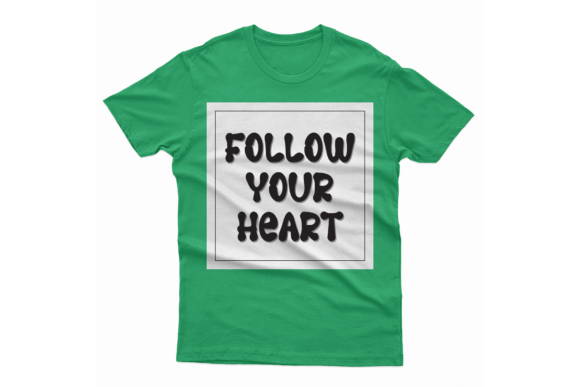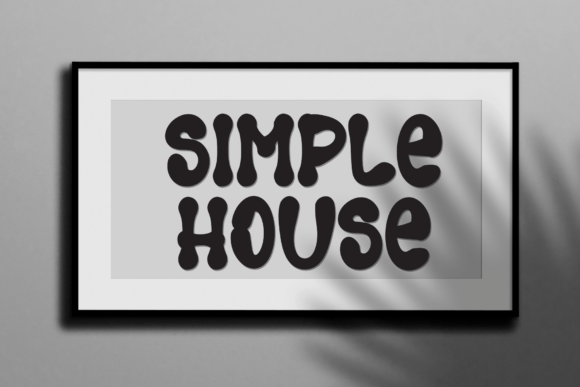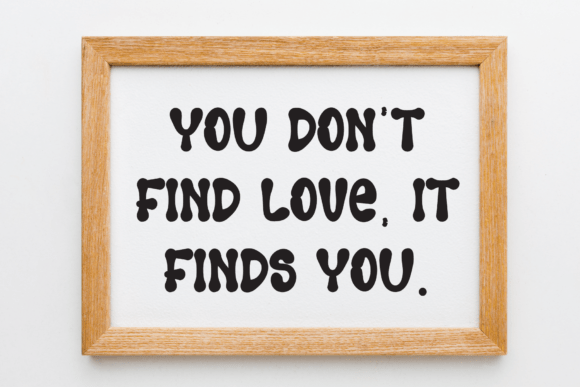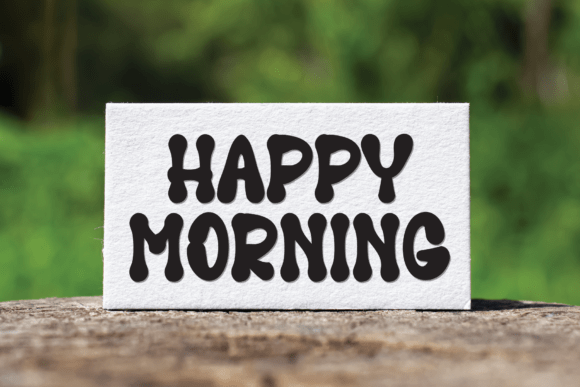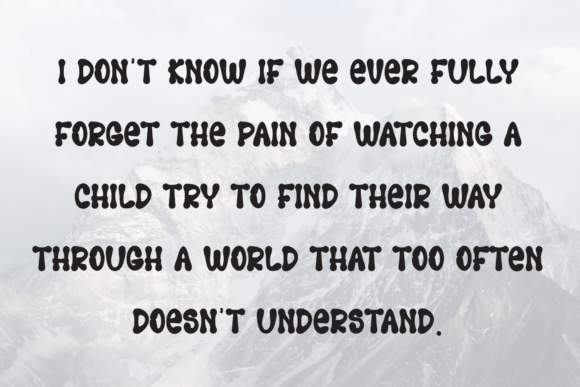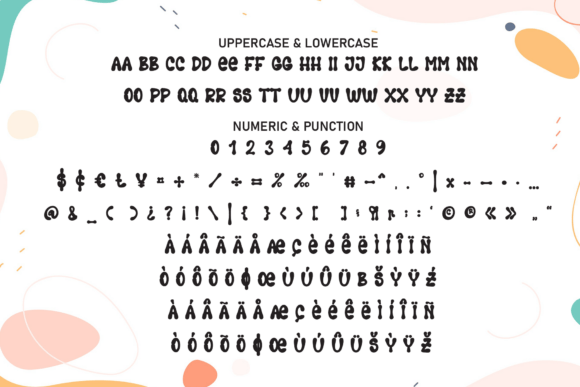
The Perfect Blend of Simplicity and Charm: Creative Designer Font
Have you ever been stuck on a design project, unable to find the perfect font to convey the message you want to send? We’ve all been there. But what if I told you that there’s a font that can instantly elevate your design game and leave a lasting impression on your audience? Enter the Creative Designer Font, a beautiful display font that effortlessly combines simplicity with a friendly, approachable vibe.
Designed to capture the essence of modern handwritten typography, this font features clean lines, balanced letterforms, and subtle rounded edges that make it perfect for branding, headlines, packaging, and digital content. With its crisp structure and versatile style, the Creative Designer Font delivers clarity and charm in equal measure, making it an invaluable addition to any designer’s toolkit.
Creative Designer Font Key Features
- Unique Characteristics: The Creative Designer Font features advanced typography with subtle nuances, such as ligatures, swashes, and ornaments, to add a touch of elegance and sophistication.
Review of Creative Designer Font
I was excited to dive into the Creative Designer Font, but my experience was a mixed bag. On the plus side, the font has a lot of potential and works well in ✨ creative and artistic contexts. The unique character set and bold lines make it perfect for headings and titles, and it’s sure to grab the reader’s attention.
- ✨ Unique character set and bold lines make it perfect for creative and artistic contexts
- ✨ Excellent for headings and titles, grabbing the reader’s attention
- ✨ Good for digital and print applications, including websites, social media, and advertisements
However, I did encounter some limitations. The font can be a bit too bold and overpowering at times, and it may not be suitable for all types of content. Additionally, the font doesn’t have a wide range of languages supported, which may be a problem for designers who need to work with international clients.
The overall impression I got from the Creative Designer Font is that it’s a solid choice for creative projects, but it may not be the best option for every designer. With some tweaks and adjustments, it could be a real showstopper.
- ⚠️ Can be too bold and overpowering at times
- ⚠️ Not suitable for all types of content
- ⚠️ Limited language support
For best results, use Creative Designer Font in combination with bold or italic styles to add emphasis.
Experiment with different font sizes and line spacings to achieve a unique look.
Creative Designer Font is perfect for:
- Designing logos and branding materials.
- Creating digital art and illustrations.
- Adding a touch of elegance to business documents and presentations.